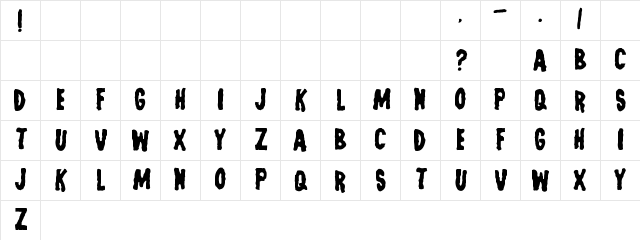
Lastman Regular
Design Context for Lastman
Lastman is a composed and adaptable typeface that performs quietly and consistently across a wide range of design contexts.